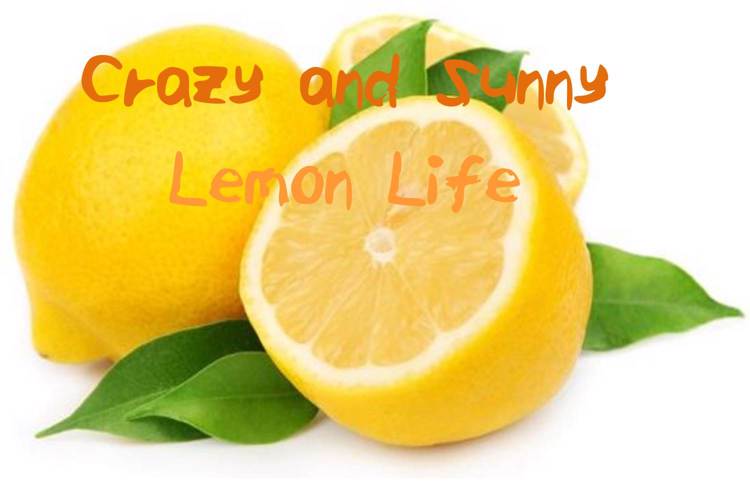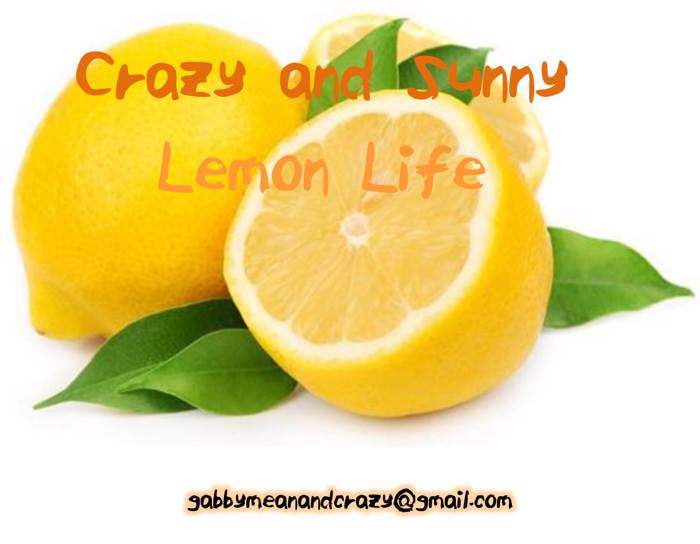
ELF_Crazy_and_Sunny_Lemon_Life Font
Hi! This is my first font! Hope you like it!
@EmmaLemonade Your first font looks great! Keep at it and it will become even better over time 😃
I wonder...why do you download my weird font??? 😃
@EmmaLemonade i think it looks awesome!
love this font! crazy and sunny indeed 😄
OMG I can't believe I really did this... 😄 Though it looks terrible! 😞